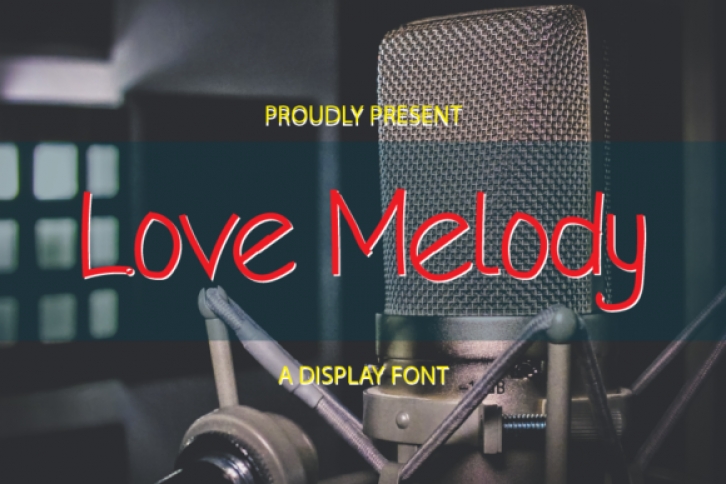
Love Melody is a sweet handwritten font with narrow letters and a playful baseline. Add a personal touch to your greeting cards, wedding invitations, or branded content with this font!